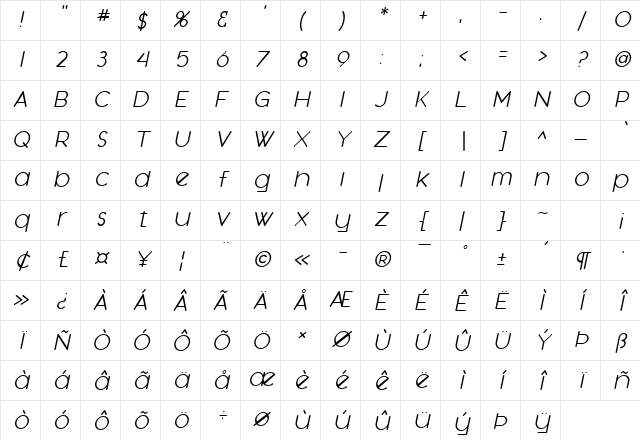
SF Orson Casual Light Oblique Free Font
SF Orson Casual Light Oblique
Designer: ShyFonts Type Foundry
Design Context for SF Orson Casual Light
SF Orson Casual Light is a composed and adaptable typeface that performs quietly and consistently across a wide range of design contexts. The slanted form adds forward momentum and visual energy. Its slender proportions lend an understated elegance to any composition.